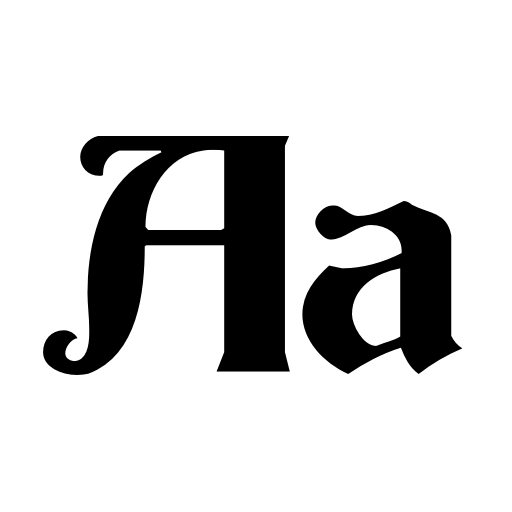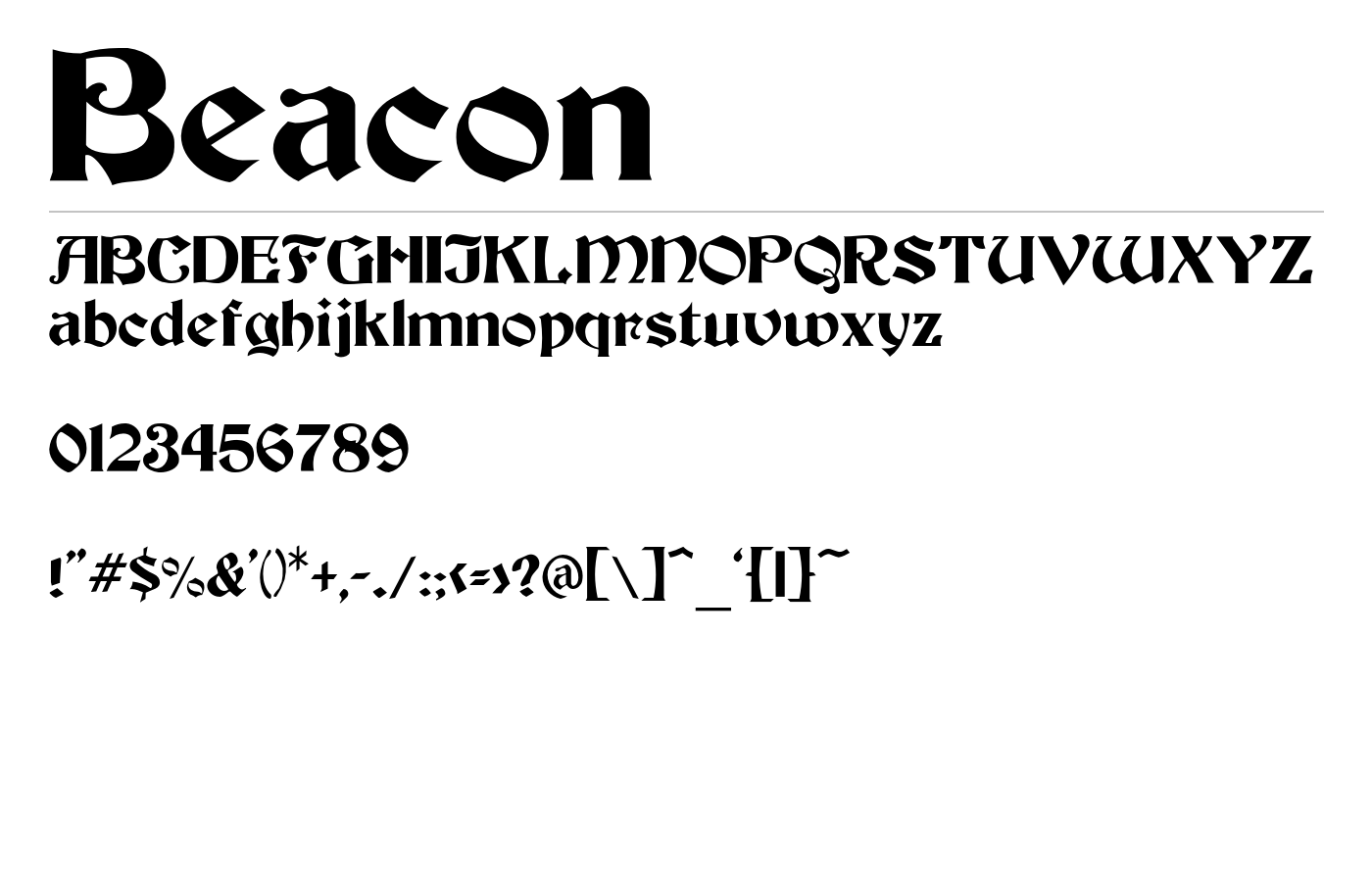
Beacon is a bold blackletter-inspired serif font with a strong, gothic character and high stroke contrast that gives it a dramatic and traditional feel. Its sharp, angular letterforms and decorative details make it ideal for vintage-themed branding, headlines, or editorial projects that aim to convey elegance and authority. This font works best in display sizes where its unique style can be fully appreciated.
Beacon Font
About Beacon Font